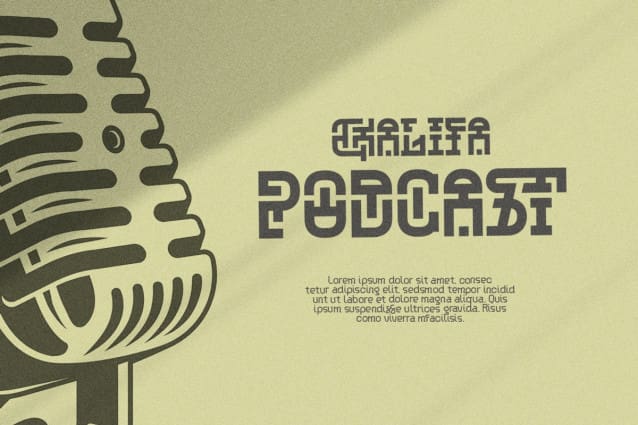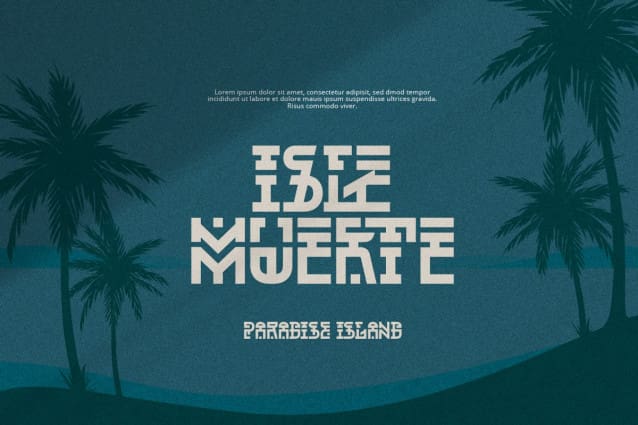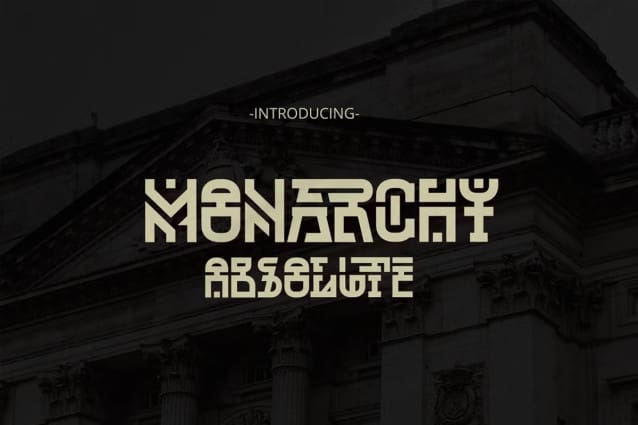
Monarchy Absolute Font
Monarchy Absolute Font is a striking and bold typeface that combines aesthetic monoline design with a unique futuristic flair. Each character in this font is meticulously crafted to create a harmonious balance between modern elegance and eye-catching uniqueness. Its bold, all-caps lettering makes it perfect for headlines, logos, posters, and any project that demands attention. The clean lines and consistent weight of Monarchy Absolute give it a Strong and streamlined appearance, making it versatile for various design themes—from contemporary and minimalistic to futuristic and avant-garde. This font’s distinctiveness lies in its ability to convey a sense of sophistication and innovation, making it an excellent choice for designers looking to make a bold statement.